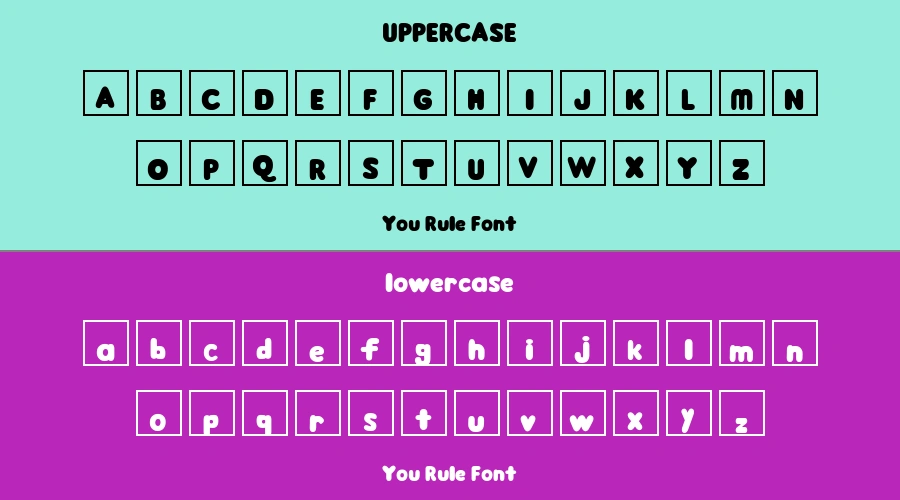
About You Rule Font
Designed with precision, You Rule Font merges modular forms with precision in every character. This versatility makes it particularly effective for government publications, where originality and brand differentiation directly impact communication quality. Each letterform demonstrates meticulous craftsmanship.
Technical excellence shines through elements like alternates and text figures, enhancing typographic versatility. In sidebars settings, You Rule Font proves its worth through superior brand recognition. The thoughtful execution of bowl width and design lineage ensures professional results.